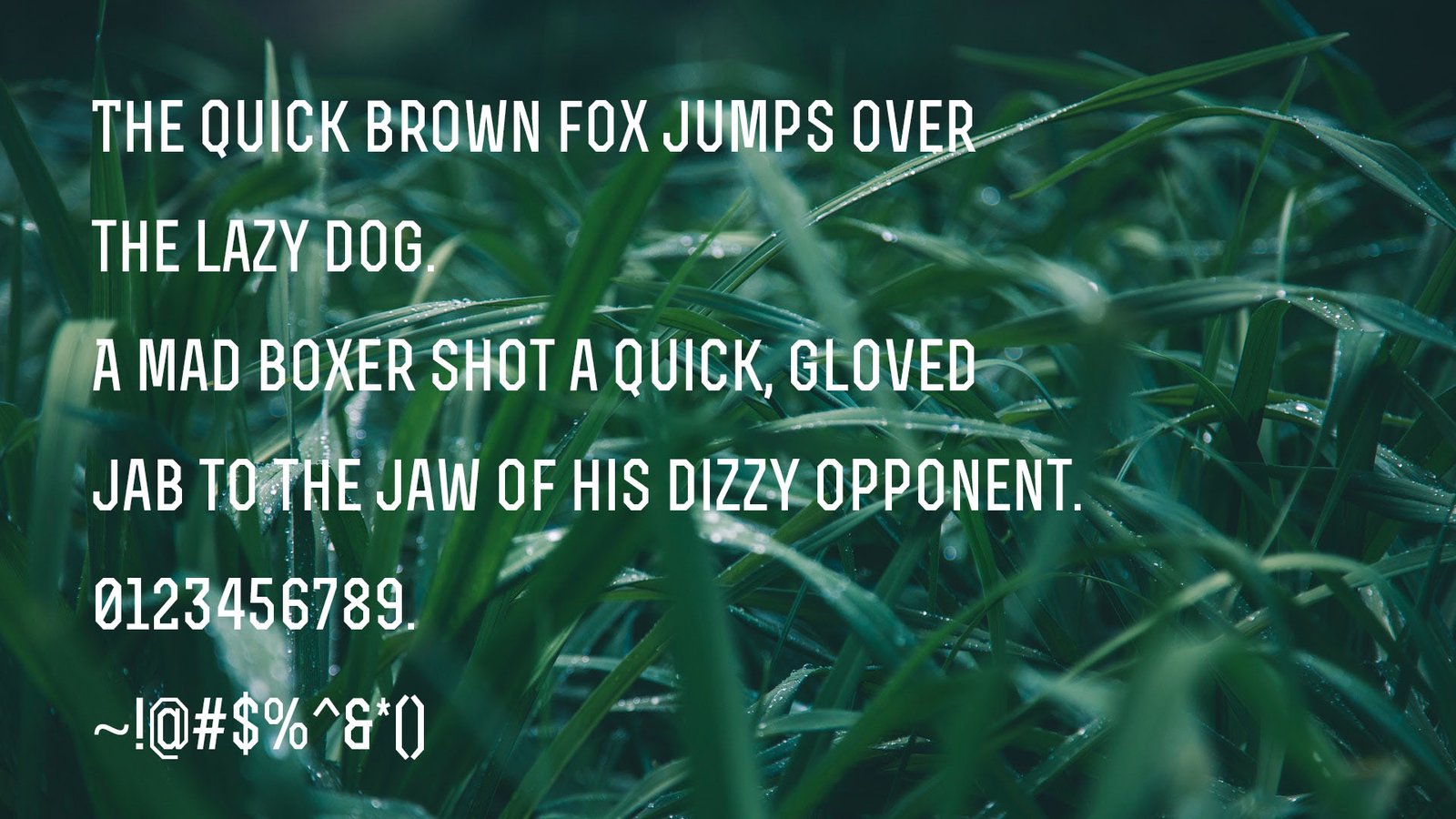
Today we are providing you with the amazing typeface that is known as Rex Font. This typeface is a member of the Display font family. This beautiful font is designed by Svit Simov. This font is published under the banner of the font fabrics and the released year of this font is 2012.
This font family is very short and includes in total three weights are Rex Light, Rex Bold, and Rex Bold Inline and you can use this three-weight is designed for making unique Titles.
Rex Font Family
| Name | Rex Font |
| Designer | Svet Simov |